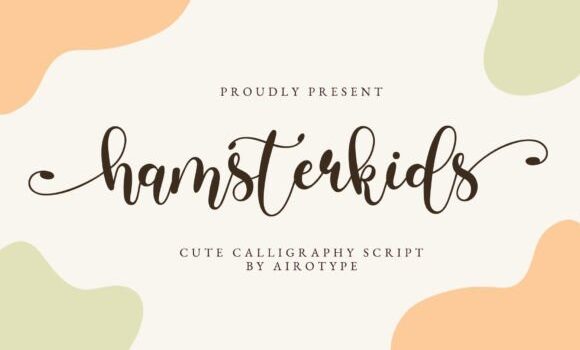
hamsterkids
Hamsterkids Font – Free Download Introduction to Hamsterkids Font Hamsterkids is a bouncy and playful calligraphy font combining modern elements with classical ones. 📸 Preview Gallery 6 images 📌 Product Name Hamsterkids Font 👤 Author airotype 📂 Category Explore ⬇️